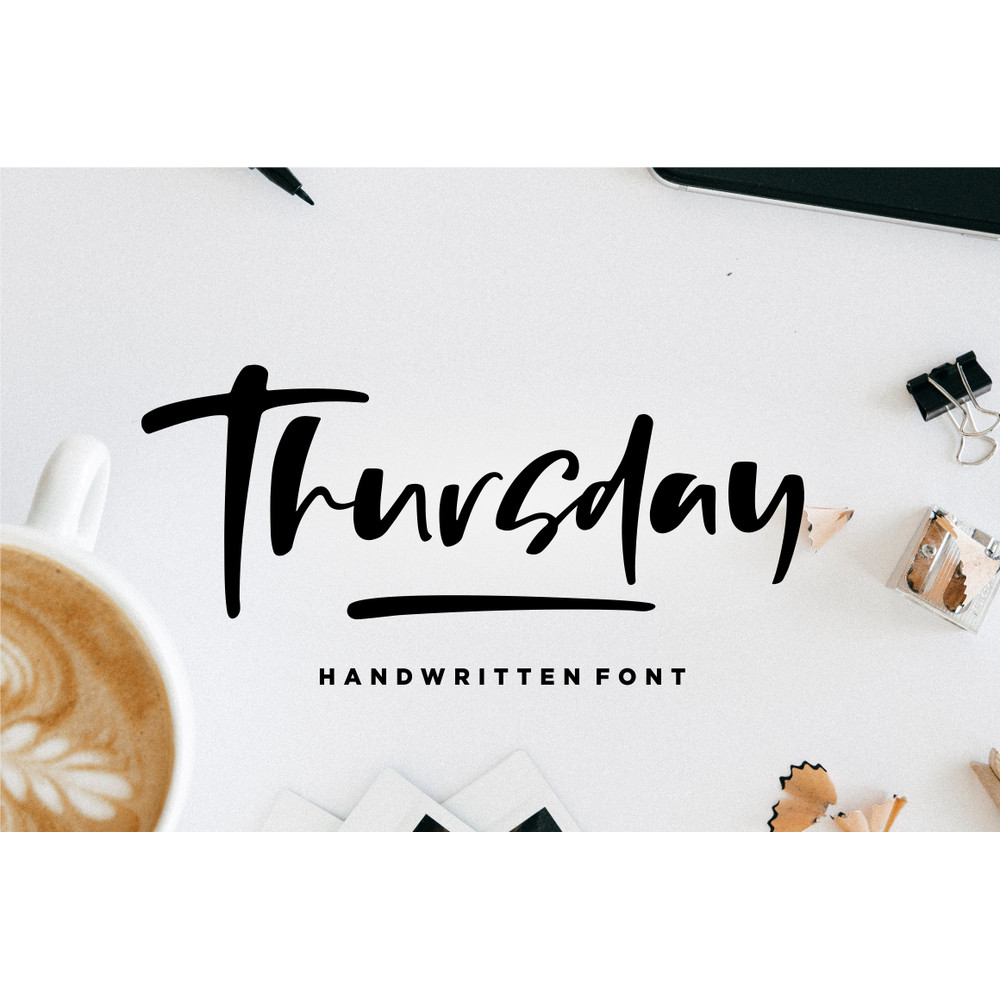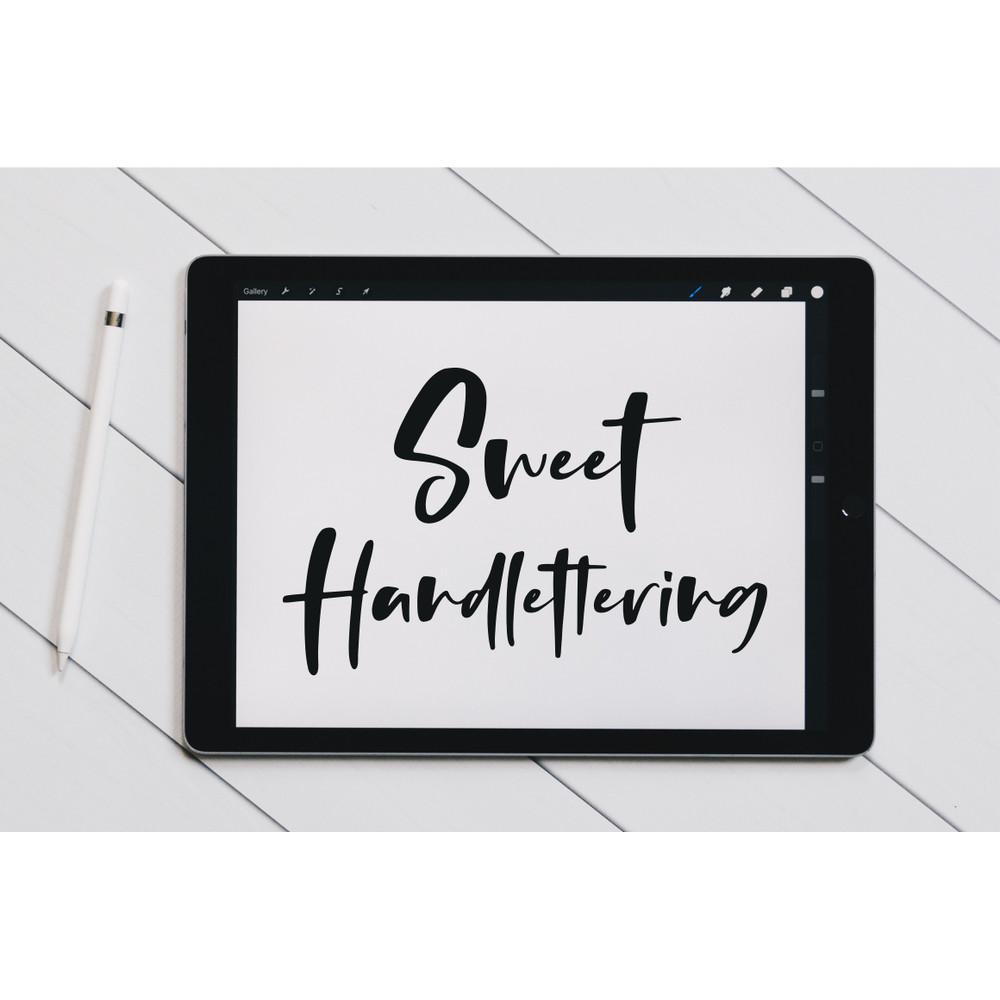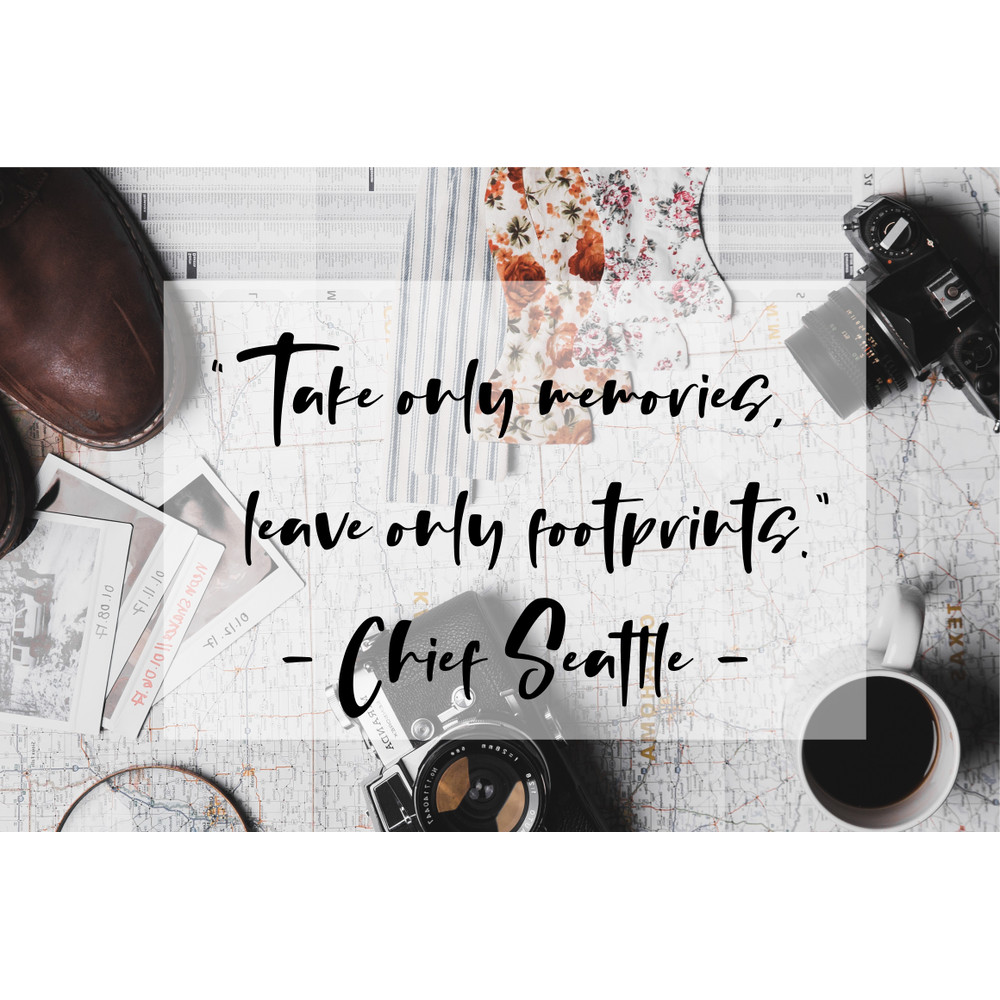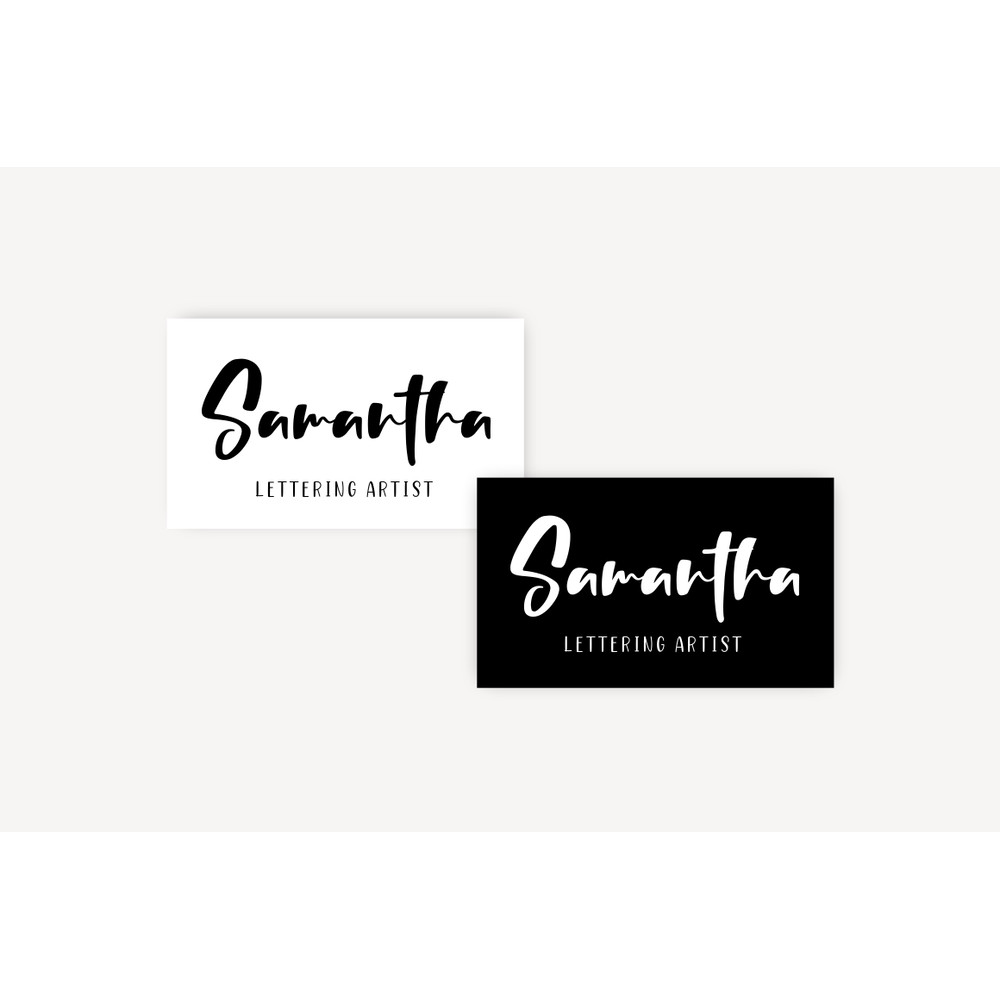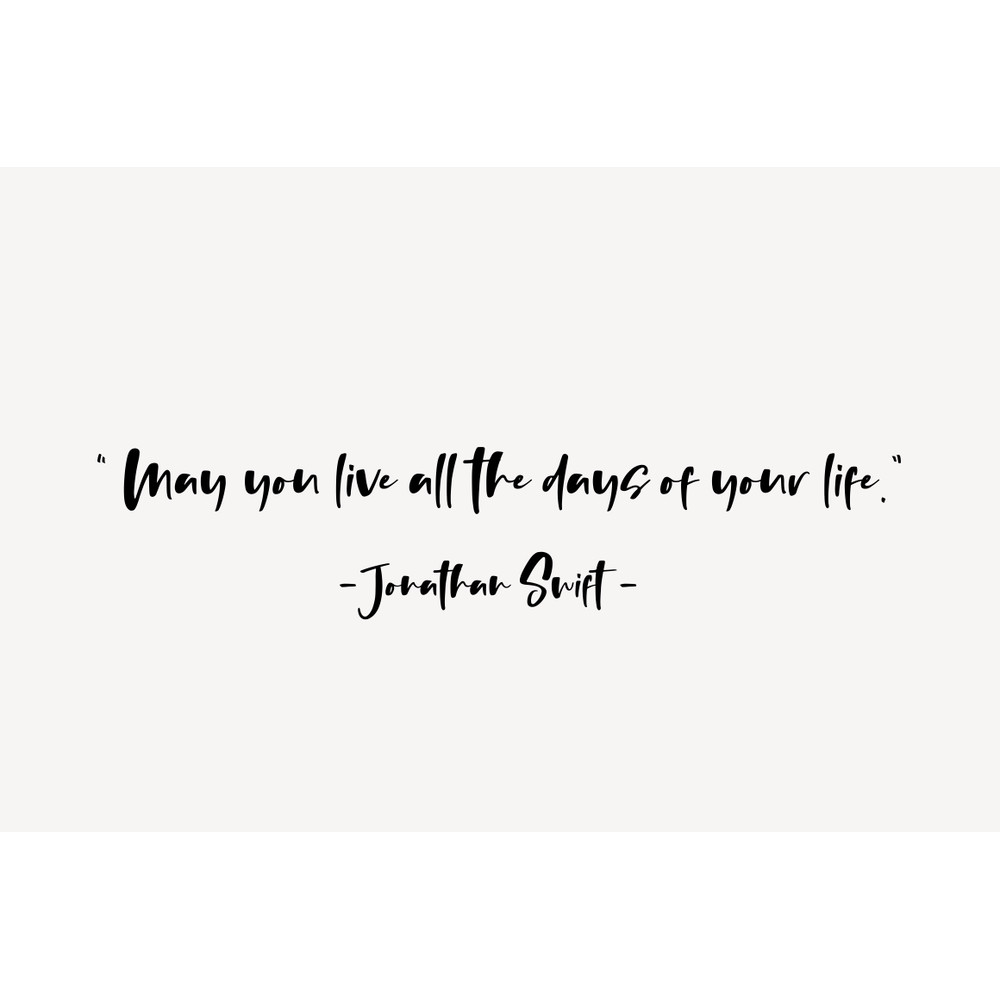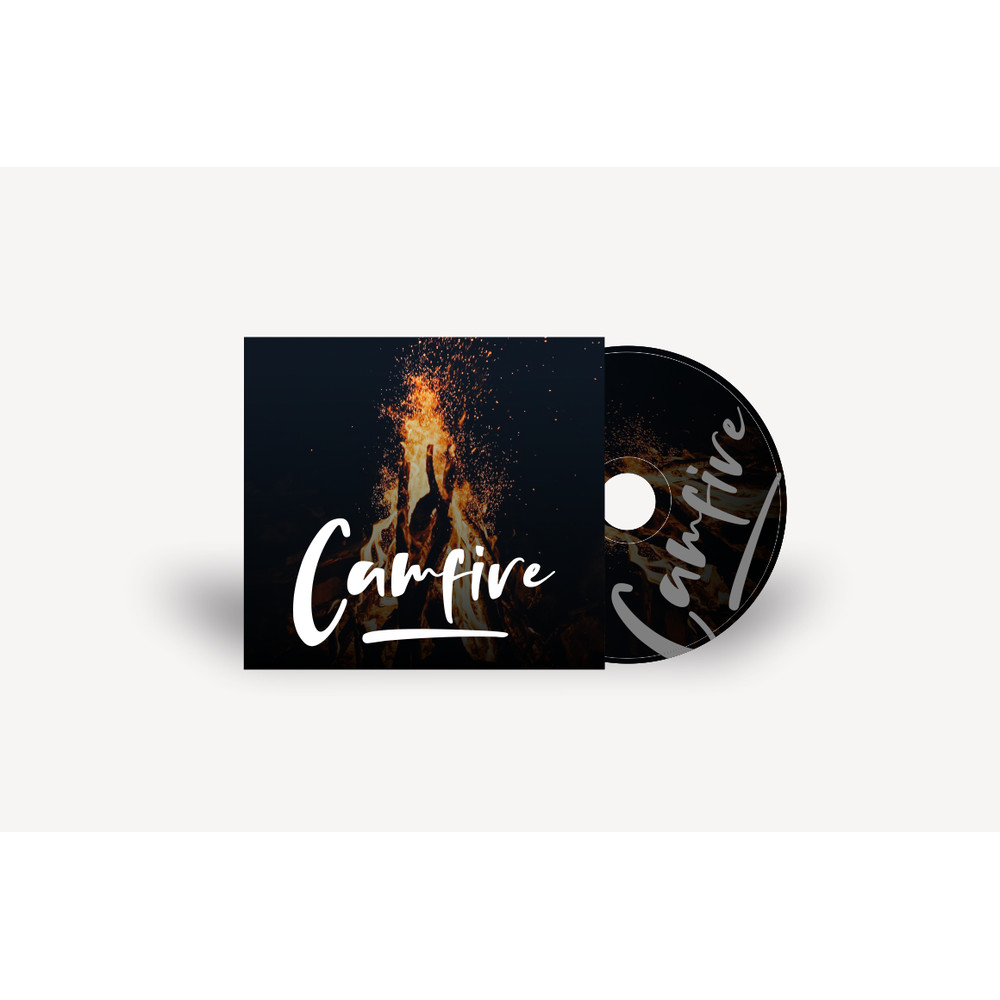
Thursday Vibes – Handwritten Font Trending Fonts - Digital Font
Thursday Vibes – a new modern & fresh handlettering font,make this font looks natural, modern, and perfect for any awesome projects.
Thursday Vibes is perfect for many different project such as logos & branding, invitation, stationery, wedding designs, social media posts, advertisements, product packaging, product designs, label, photography, watermark, special events or anything.
Thursday Vibes – a new modern & fresh handlettering font,make this font looks natural, modern, and perfect for any awesome projects.
Thursday Vibes is perfect for many different project such as logos & branding, invitation, stationery, wedding designs, social media posts, advertisements, product packaging, product designs, label, photography, watermark, special events or anything.
Thursday Vibes – Handwritten Font Trending Fonts - Digital Font
Thursday Vibes – a new modern & fresh handlettering font,make this font looks natural, modern, and perfect for any awesome projects.
Thursday Vibes is perfect for many different project such as logos & branding, invitation, stationery, wedding designs, social media posts, advertisements, product packaging, product designs, label, photography, watermark, special events or anything.
Thursday Vibes – a new modern & fresh handlettering font,make this font looks natural, modern, and perfect for any awesome projects.
Thursday Vibes is perfect for many different project such as logos & branding, invitation, stationery, wedding designs, social media posts, advertisements, product packaging, product designs, label, photography, watermark, special events or anything.